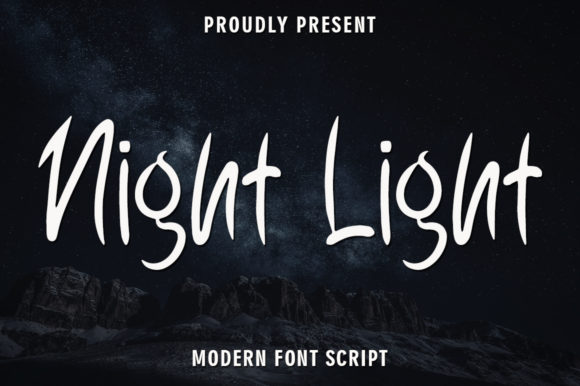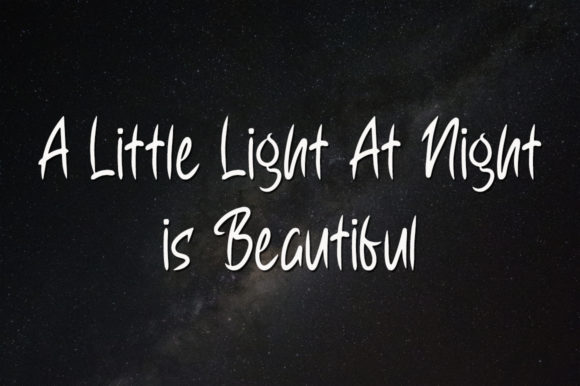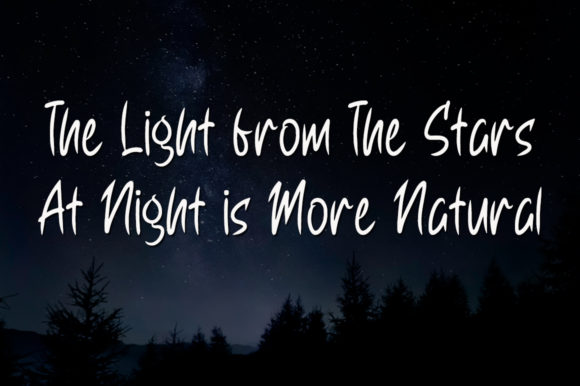
About Night Light Font
Night Light is a stylish and interesting handwritten font. Incredibly versatile, this font will fit a wide pool of designs.
Fall in love with its incredibly unique look and use it to create spectacular designs!